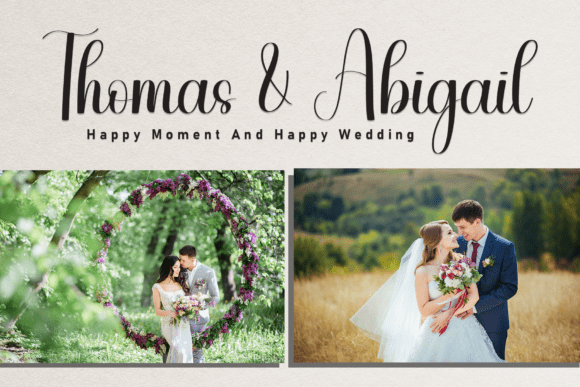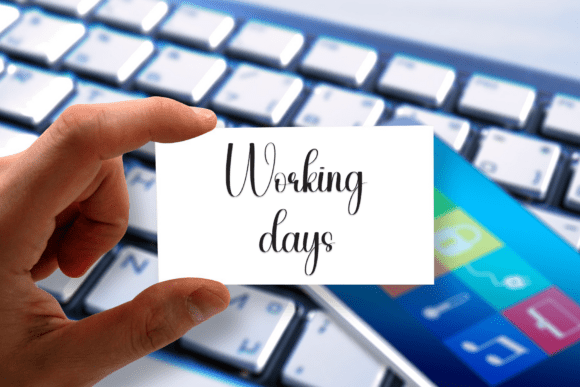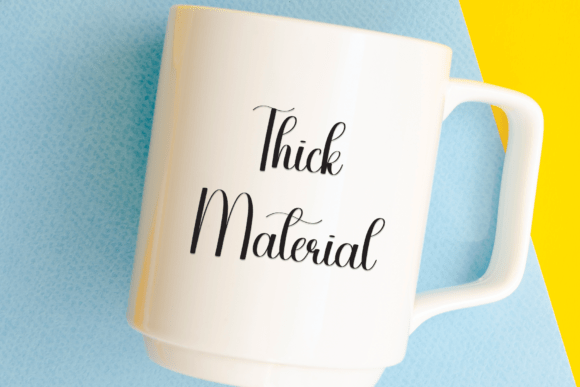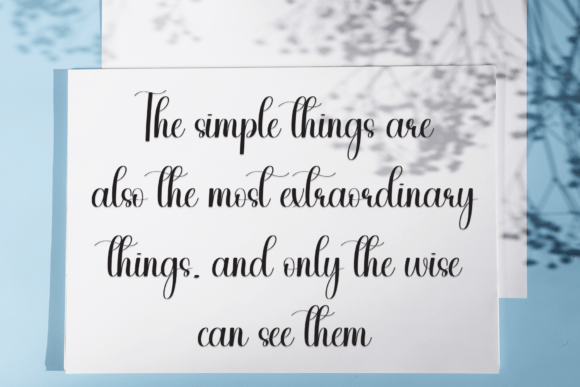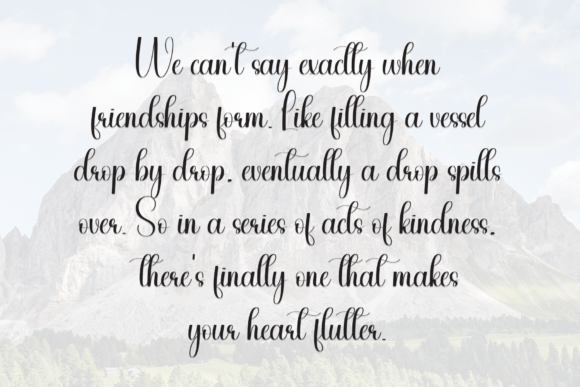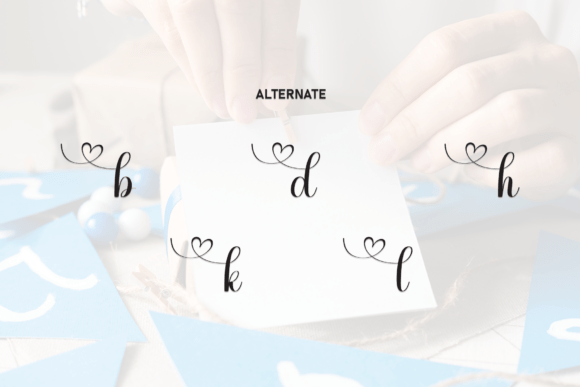
Introducing Flashcard Font: Elevate Your Design with Elegant Modern Calligraphy
Are you looking for a font that combines the perfect balance of elegance and professionalism? Look no further than Flashcard Font, a refined modern calligraphy script that is sure to elevate your designs to new heights. With its delicate, personal touch and clean, professional finish, Flashcard is the ideal choice for designers and crafters seeking to add a touch of sophistication to their work.
What Makes Flashcard Font Stand Out?
Flashcard Font boasts a range of features that set it apart from other fonts. Its high contrast between thick downstrokes and thin upstrokes, combined with a moderate slant, conveys genuine, elegant penmanship that is sure to impress. But what really makes Flashcard stand out is its charming use of decorative elements, such as the subtle heart incorporated into the initial swash, adding a sweet, personalized touch to any design.
The Perfect Font for a Range of Applications
Flashcard Font is incredibly versatile, making it suitable for a wide range of applications. Whether you’re designing wedding stationery, personalized gifts, greeting cards, or educational materials, Flashcard ensures a high-quality, artistic, and sophisticated presentation that is sure to delight. Its clean connections and excellent weight distribution guarantee legibility across various applications, making it the perfect choice for designers and crafters.
Ideal for Feminine Luxury Branding
Flashcard Font is particularly well-suited to feminine luxury branding, adding a touch of elegance and sophistication to any design. Its refined, modern calligraphy style is sure to appeal to designers and brands seeking to convey a sense of high-end quality and style. Whether you’re designing packaging, advertising materials, or website content, Flashcard Font is the perfect choice for adding a touch of luxury to your brand.
PUA-Encoded for Effortless Customization
The Flashcard script font is PUA-encoded, ensuring effortless access to all glyphs, swashes, and alternate characters. This makes it easy to customize your designs, adding a personal touch to your work. With Flashcard Font, you can easily access a range of decorative elements, including swashes, ligatures, and alternates, allowing you to create unique and eye-catching designs that stand out from the crowd.
Why Choose Flashcard Font?
So why choose Flashcard Font for your next design project? Here are just a few reasons:
- Elegant, modern calligraphy style: Flashcard Font features a refined, modern calligraphy style that is sure to add a touch of sophistication to any design.
- Highly legible: Flashcard Font has clean connections and excellent weight distribution, guaranteeing legibility across various applications.
- PUA-encoded for effortless customization: The Flashcard script font is PUA-encoded, making it easy to access a range of decorative elements and customize your designs.
- Versatile: Flashcard Font is suitable for a wide range of applications, including wedding stationery, personalized gifts, greeting cards, educational materials, and feminine luxury branding.
In conclusion, Flashcard Font is a refined modern calligraphy font that is sure to elevate your designs to new heights. With its elegant, modern style, high legibility, and PUA-encoded customization options, Flashcard Font is the perfect choice for designers and crafters seeking to add a touch of sophistication to their work. Whether you’re designing wedding stationery, personalized gifts, or feminine luxury branding, Flashcard Font is the ideal choice for creating high-quality, artistic, and sophisticated designs that stand out from the crowd.